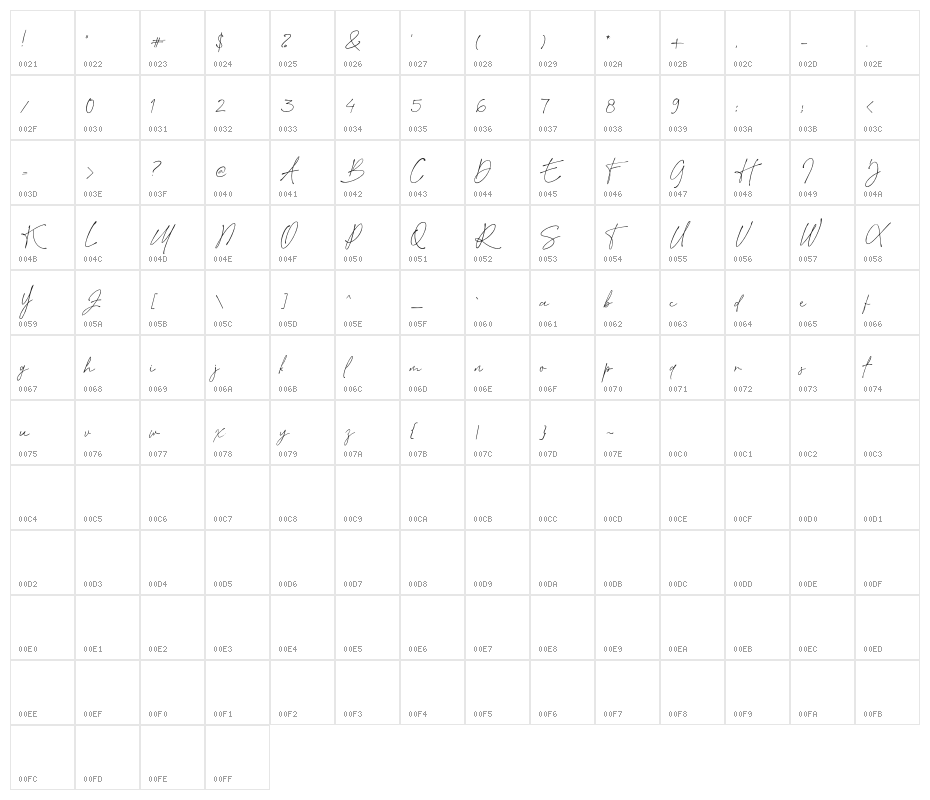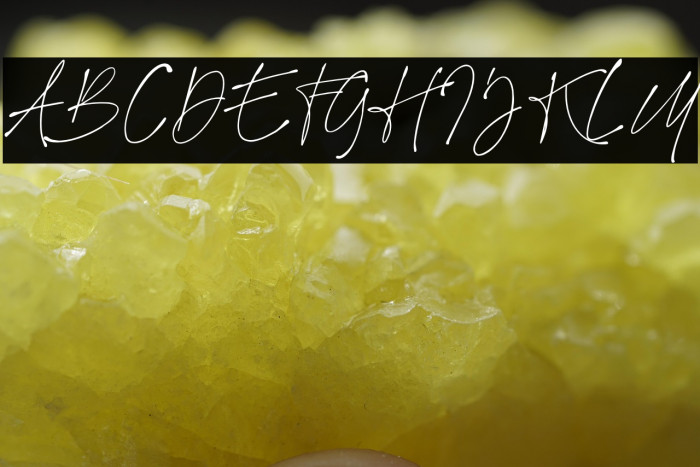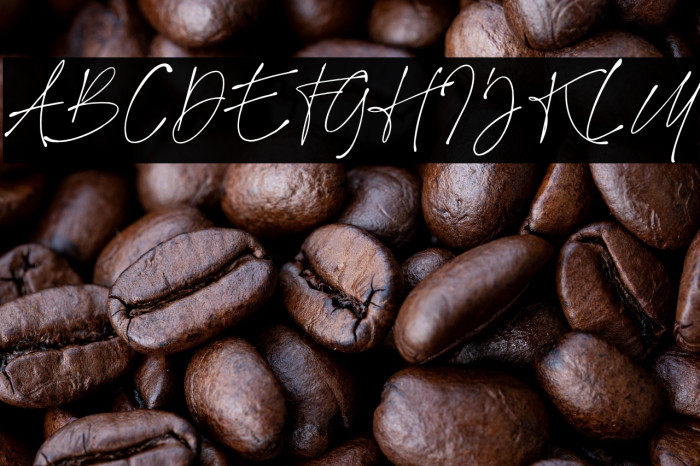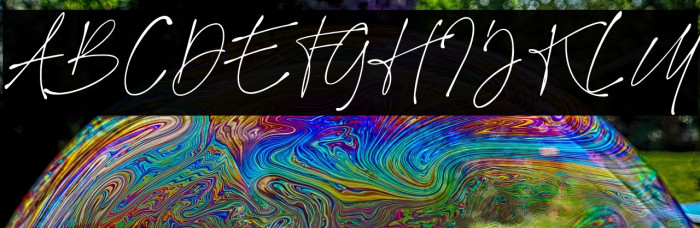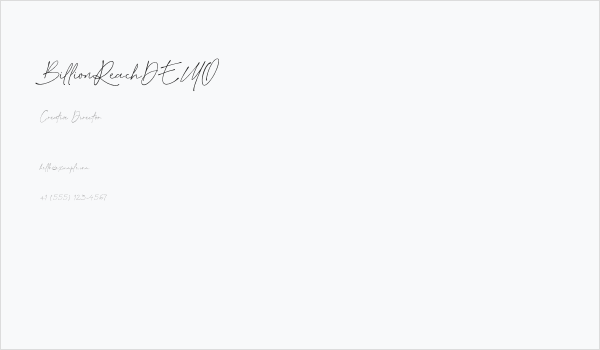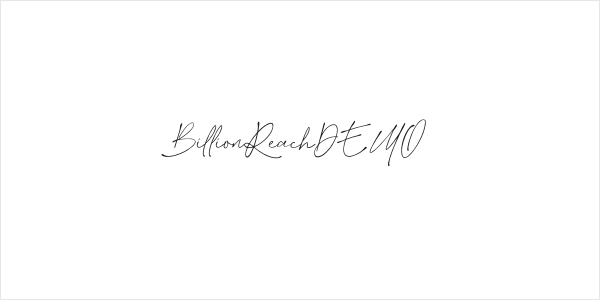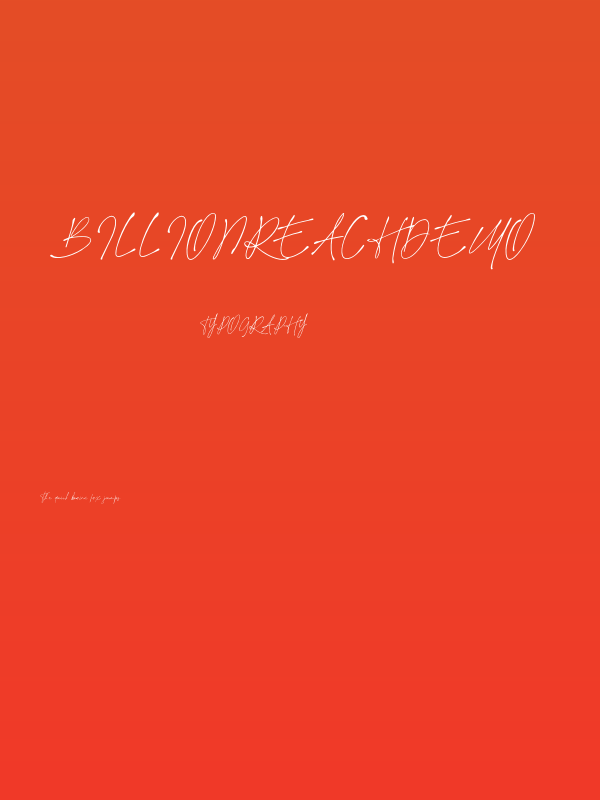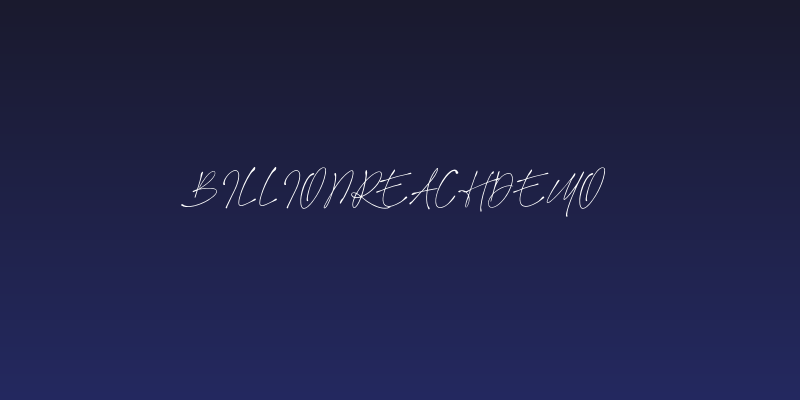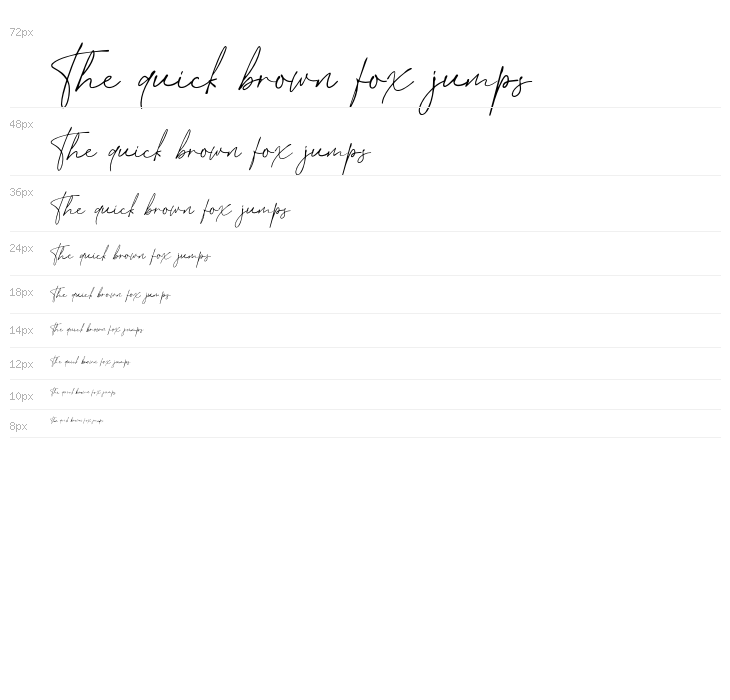
BillionReachDEMO Font
BillionReachDEMO Description
This font exudes a modern, handwritten style with a casual elegance. The letters are fluid and connected, giving a sense of motion and personality. The uppercase characters are tall and slightly slanted, while the lowercase letters maintain a consistent flow with delicate loops and curves. Numbers and special characters are crafted with the same attention to detail, ensuring a cohesive look across all elements. The thin strokes and varying line thickness add a touch of sophistication, making it suitable for projects that require a personal touch.
| Proposed Projects | Ideal for wedding invitations, personal branding, greeting cards, and artistic projects that require a personal, elegant touch. |